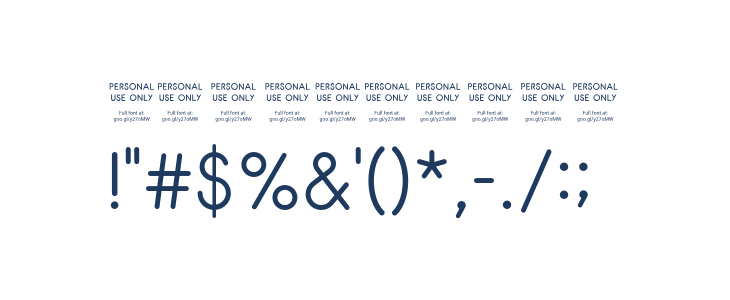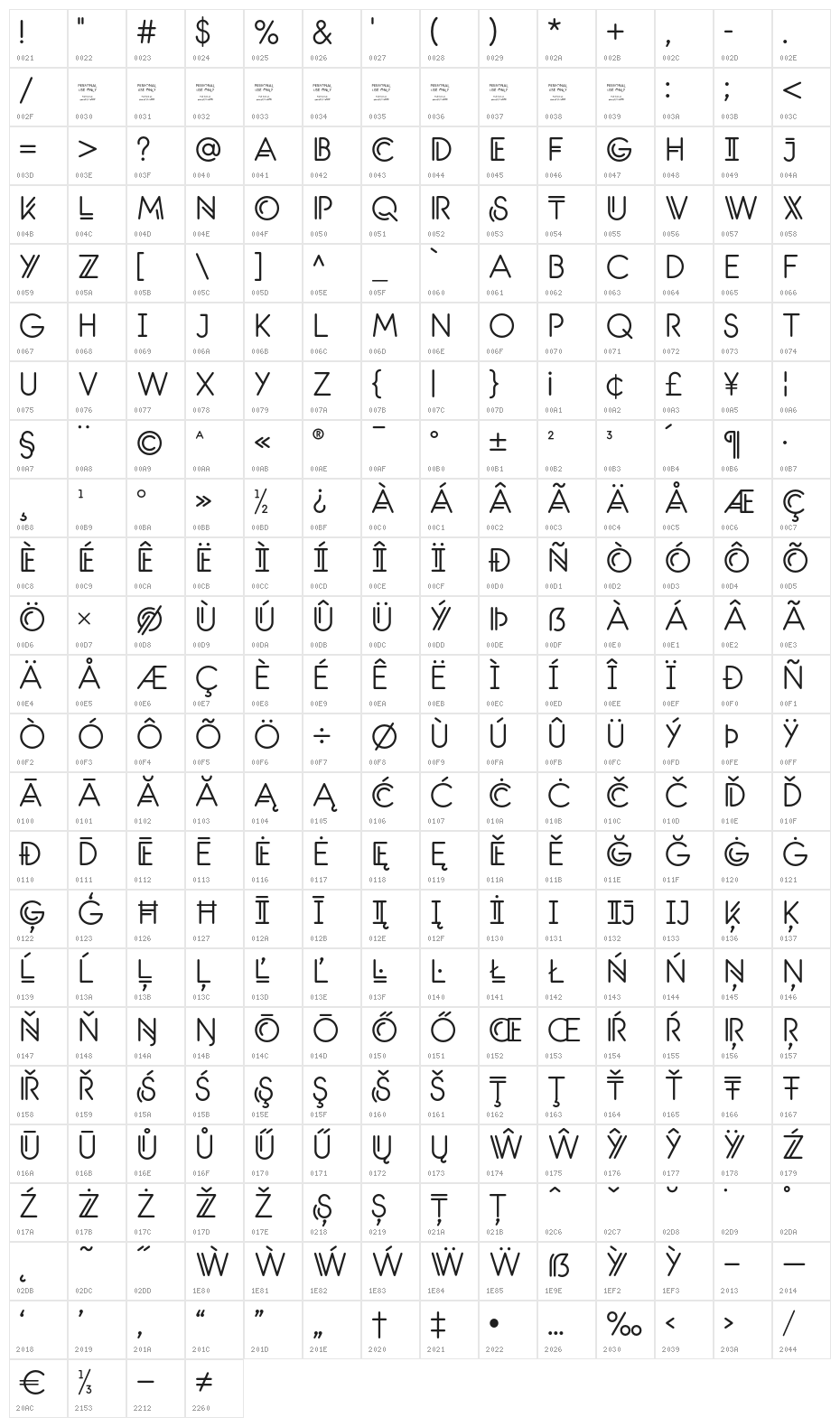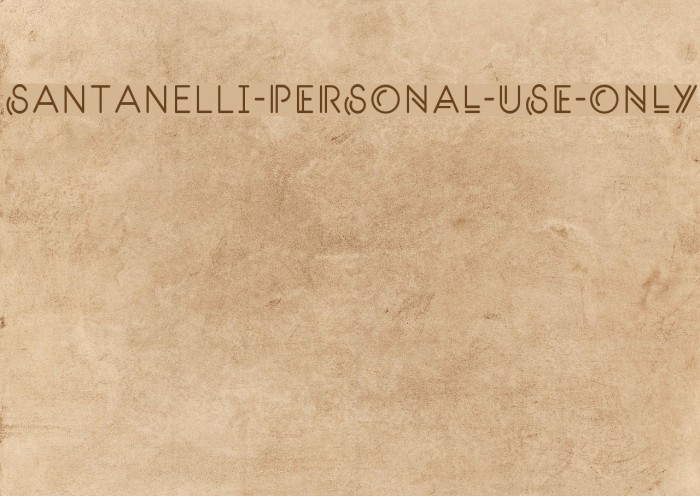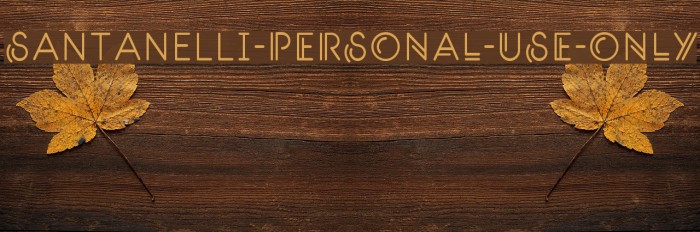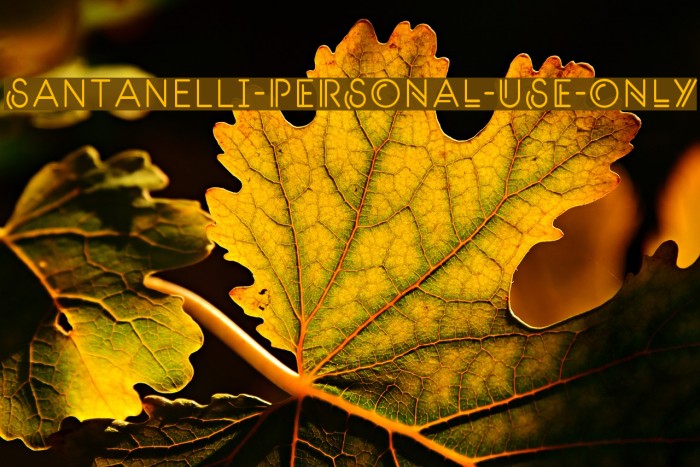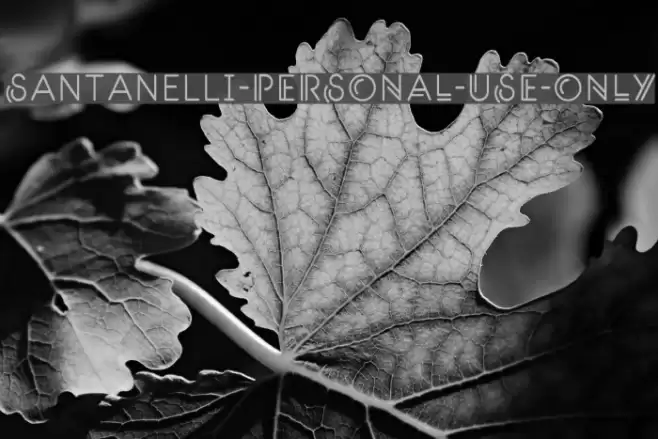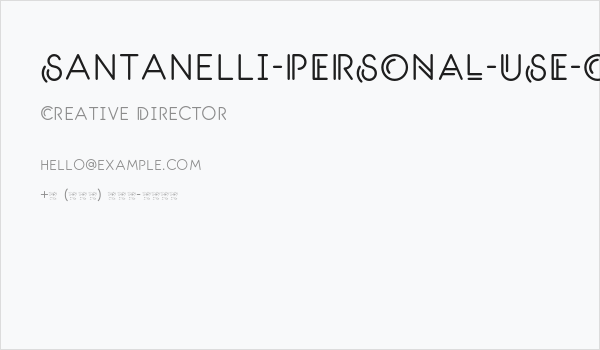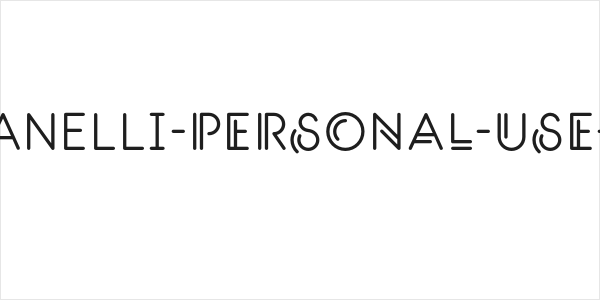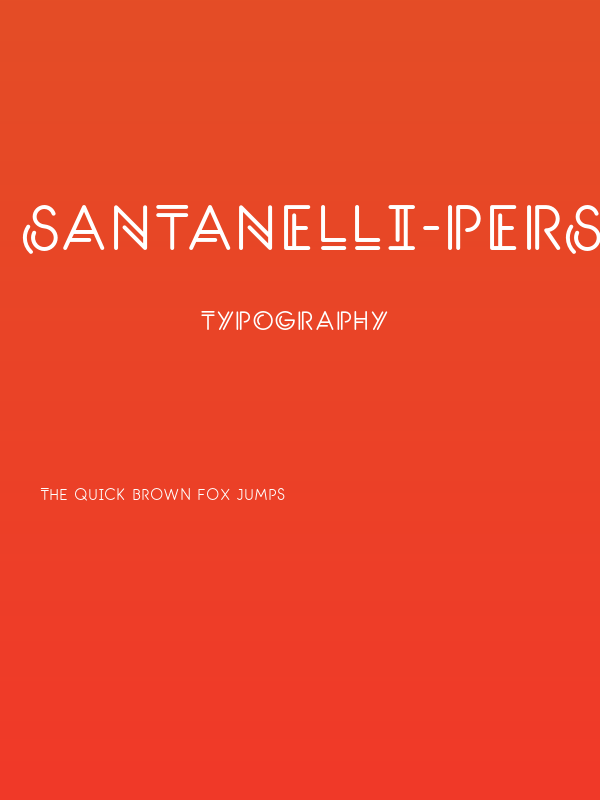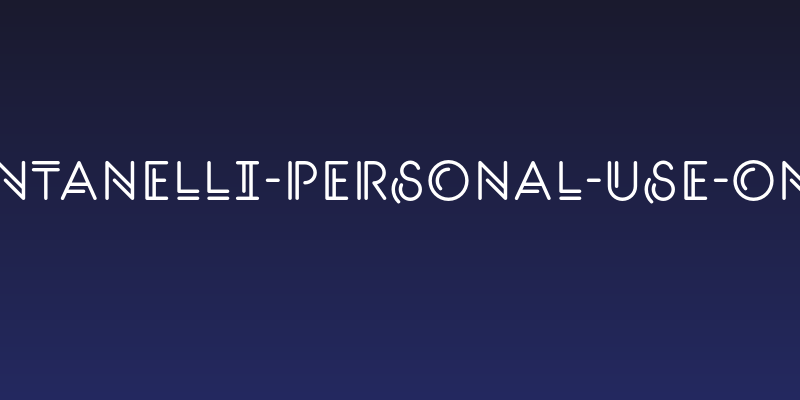
Santanelli-PERSONAL-USE-ONLY Font
Santanelli-PERSONAL-USE-ONLY Description
This font features a unique blend of geometric and modern elements, characterized by its distinct use of lines and curves. The uppercase letters exhibit a playful yet structured design, with some characters incorporating double lines or additional strokes that add a decorative touch. The lowercase letters maintain a clean and straightforward appearance, complementing the uppercase with their simplicity. The numerals and special characters follow the same design principles, ensuring consistency throughout. This font's style is both eye-catching and versatile, making it suitable for various creative applications.